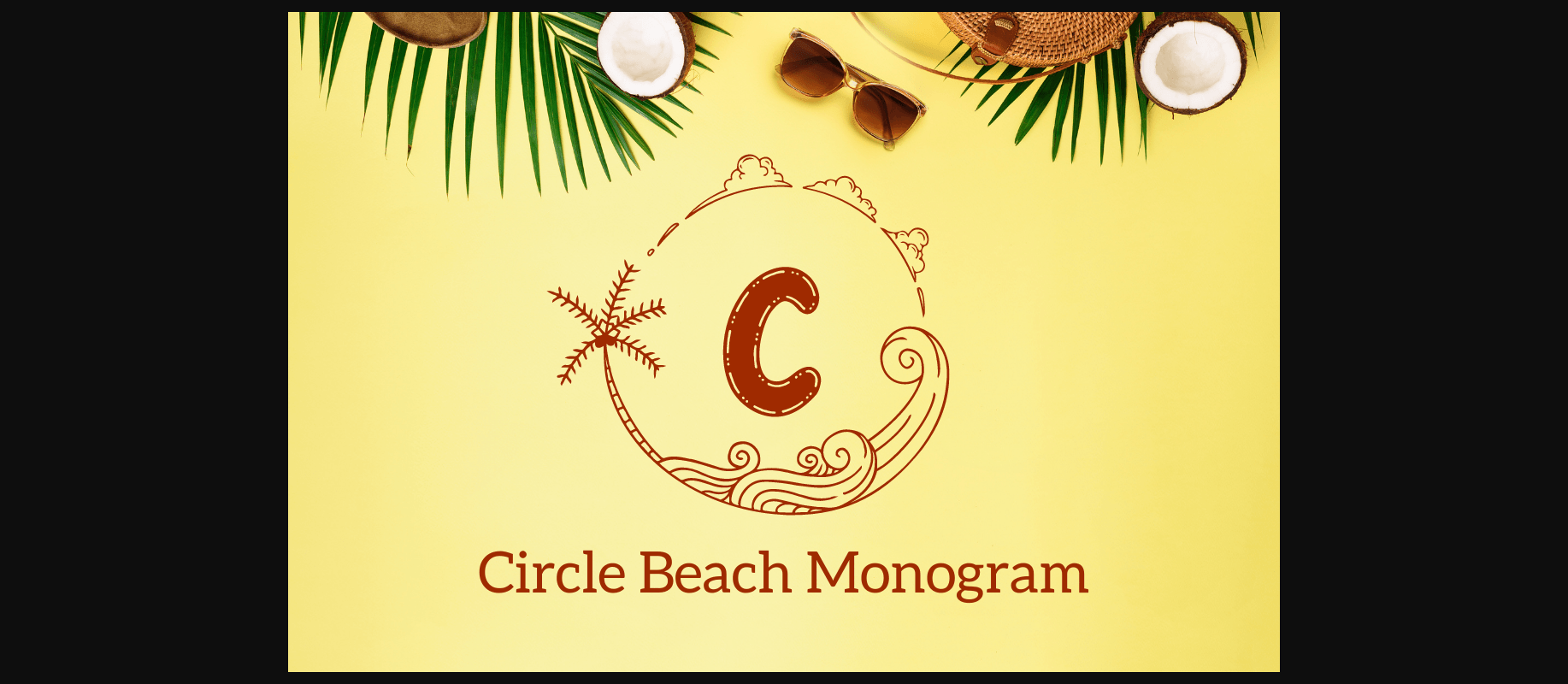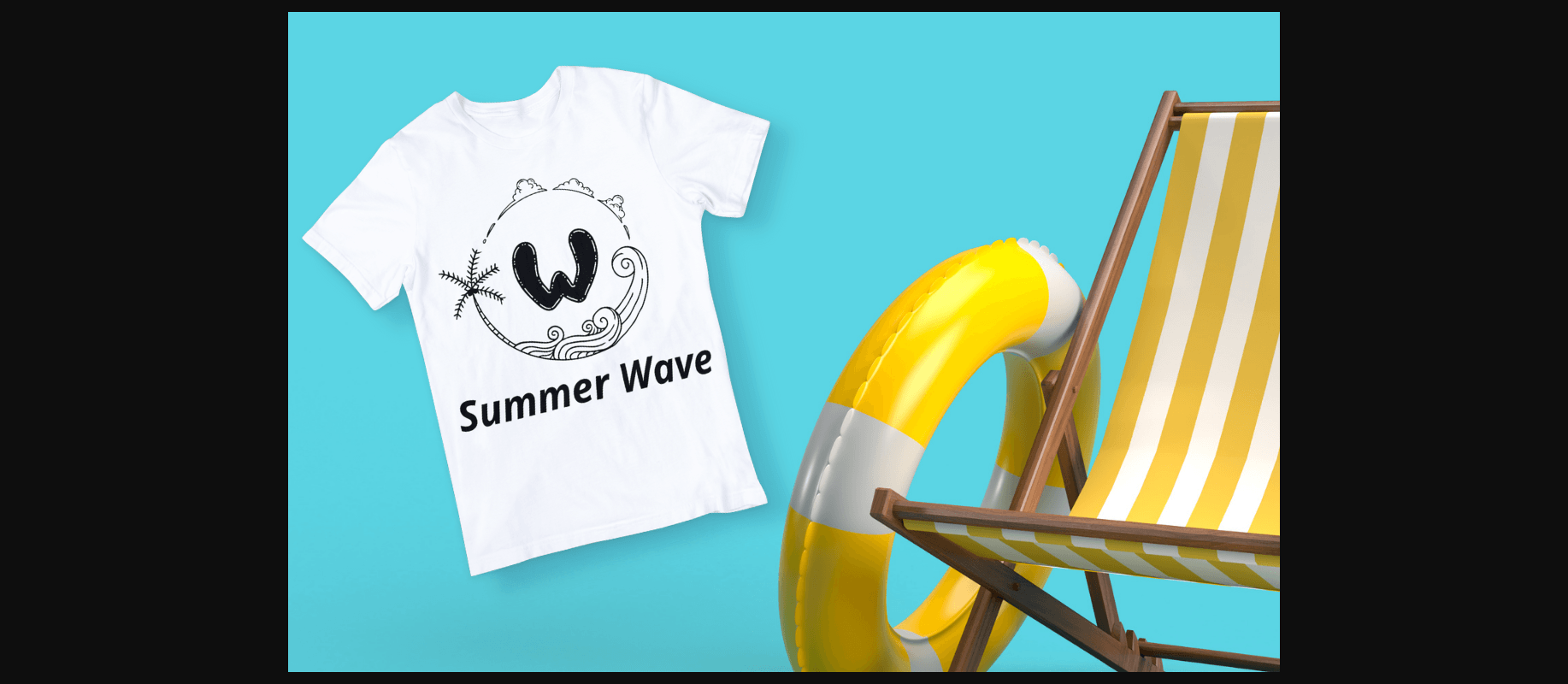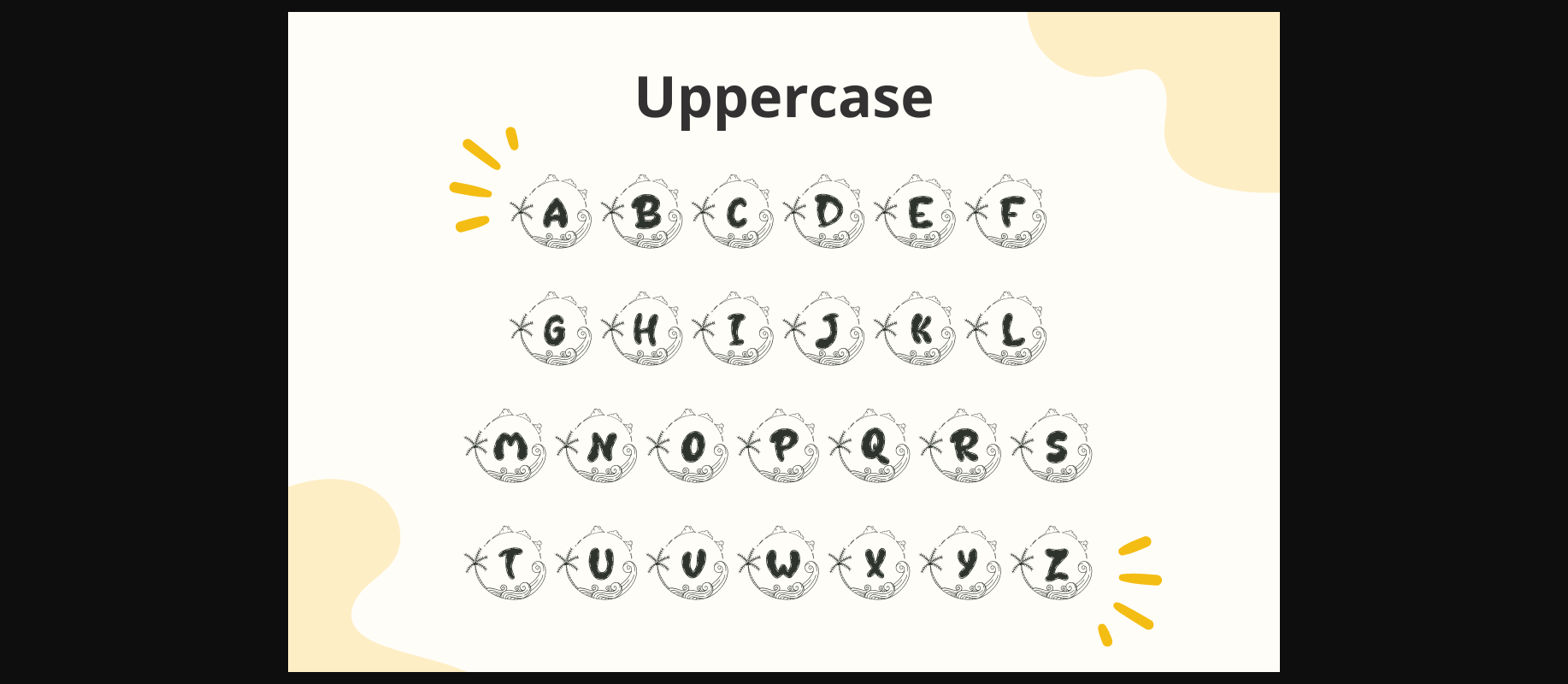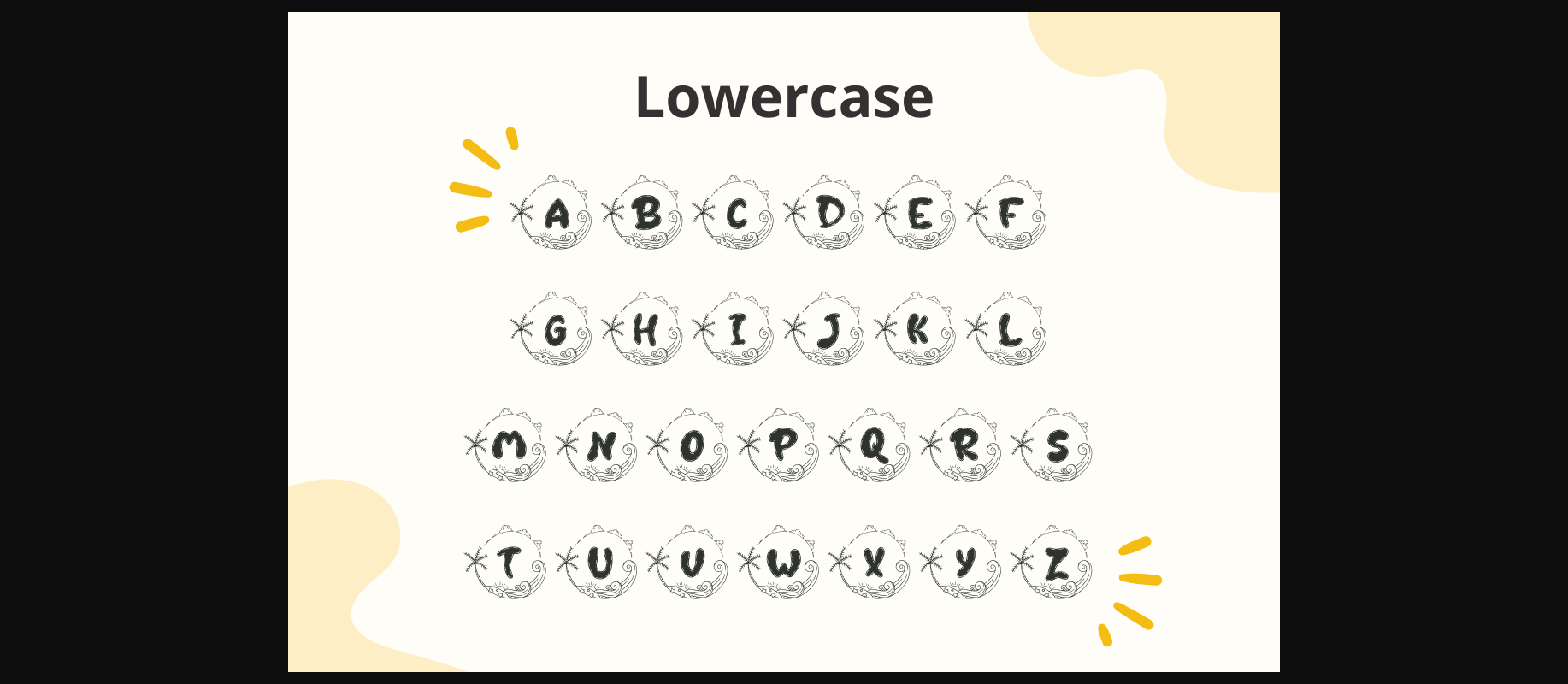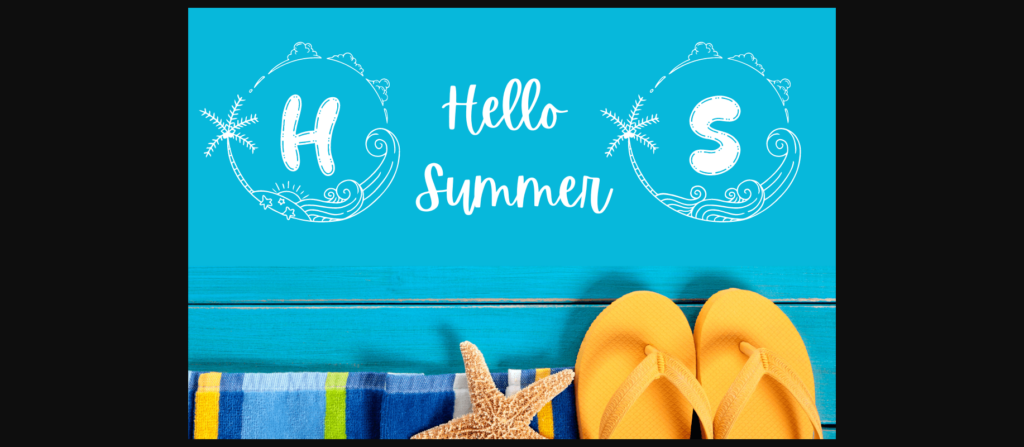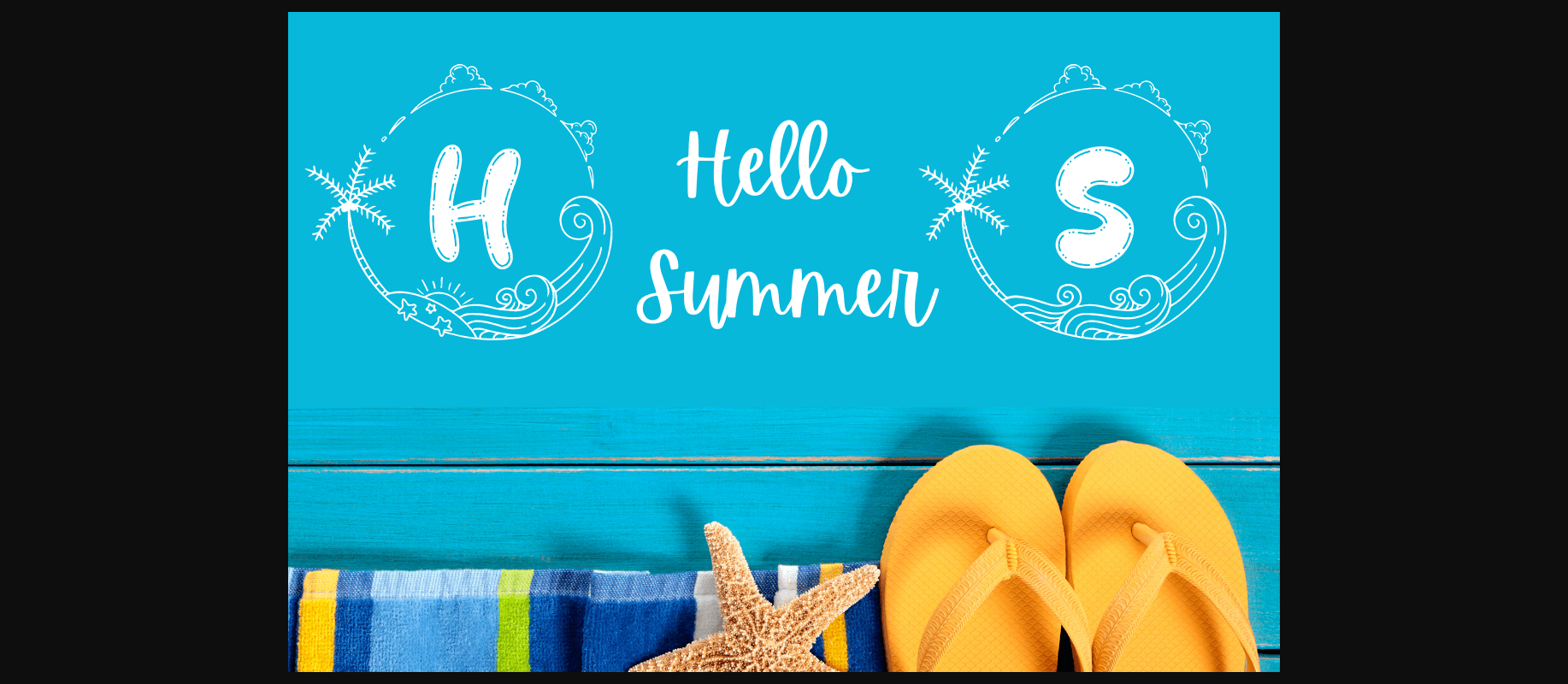
Circle Beach Monogram Font
About Circle Beach Monogram Font
Circle Beach Monogram is a summer-themed decorative font. Fall in love with this beautiful font and use it for special summer occasions, business designs, logos, branding, social media posts, wedding cards, and many more.